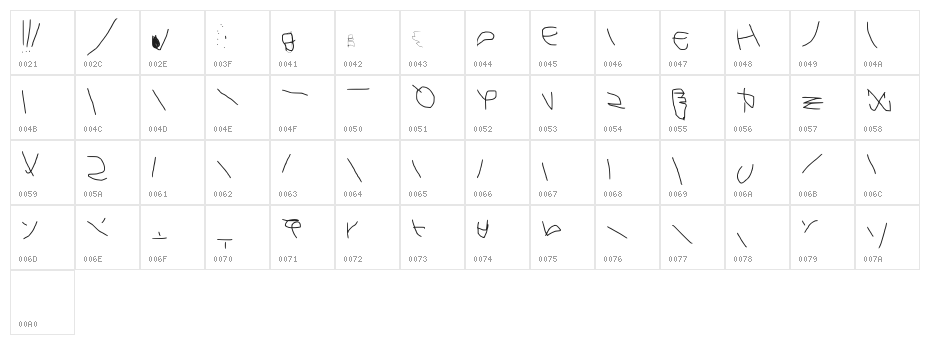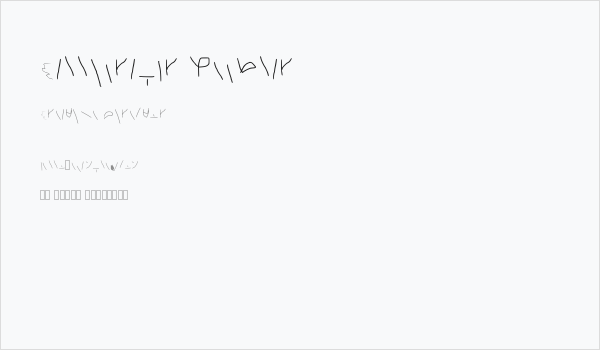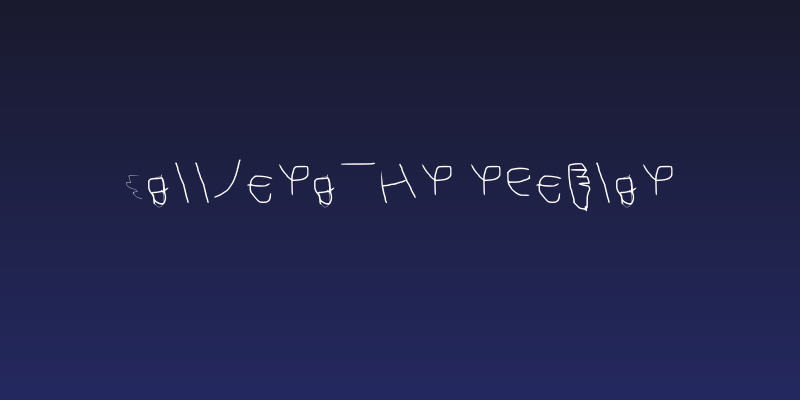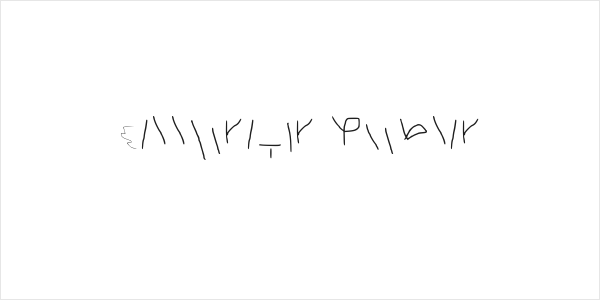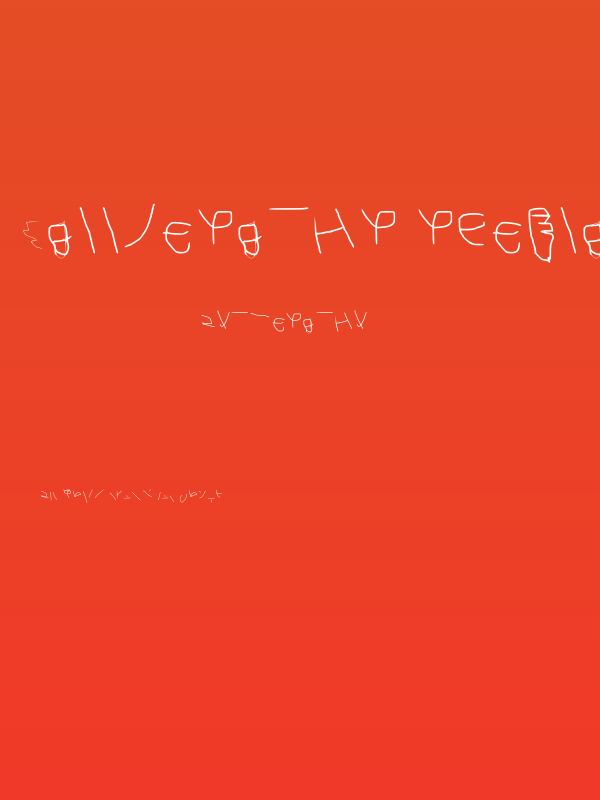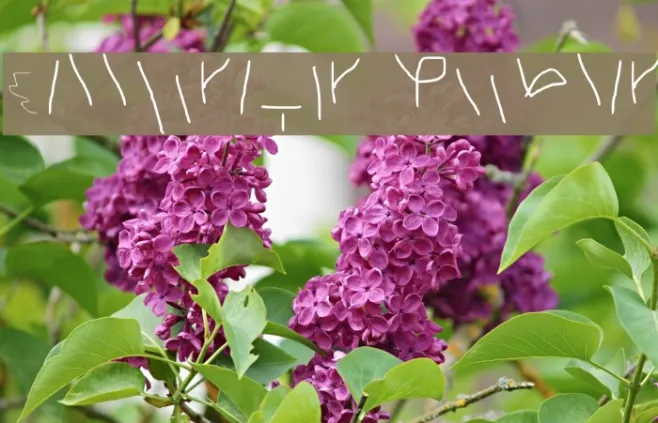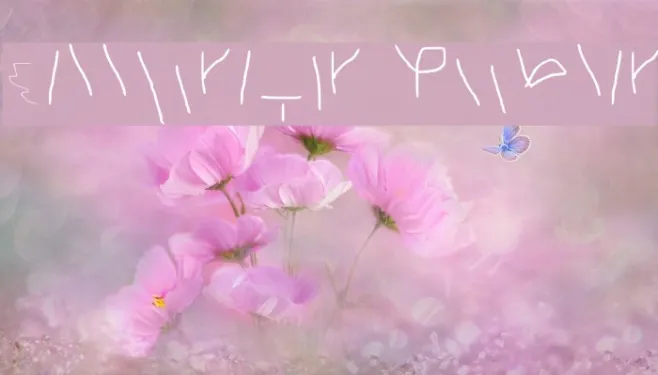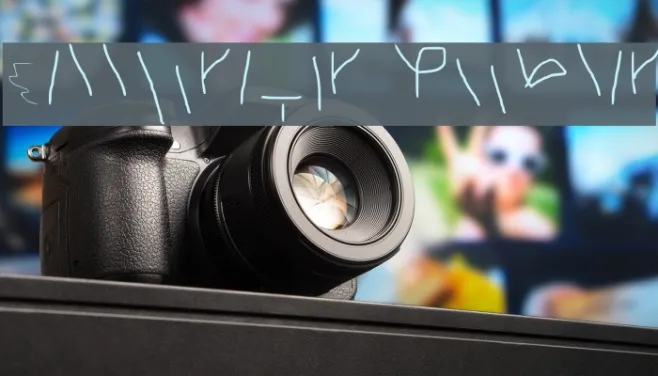
This font exhibits a highly irregular and abstract style, resembling a handwritten script with a playful and artistic flair. The characters are unevenly spaced and vary significantly in size and shape, giving it a unique, almost chaotic appearance. The strokes are bold and freeform, with some letters appearing more like abstract symbols than traditional alphabetic forms. This font captures a sense of spontaneity and creativity, making it stand out as a distinctive choice for projects that aim to convey a sense of individuality and artistic expression.
| Use Case | Logos, Artistic projects, Posters |
| Proposed Projects | Ideal for artistic projects, unique branding, creative posters, and unconventional designs. |